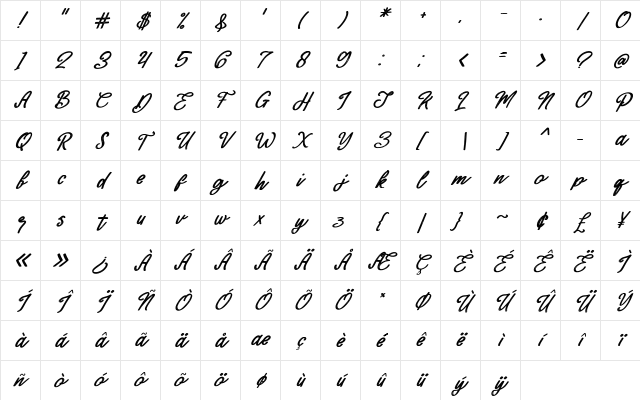
Mackline Italic Free Font
Mackline Italic
Foundry: Kong font
Designer: Kong font
Design Context for Mackline
Mackline is a composed and adaptable typeface that performs quietly and consistently across a wide range of design contexts. The slanted form adds forward momentum and visual energy.
Pro Tip: Use Mackline for emphasis, pull quotes, and subheadings where its slanted energy can add rhythm to the layout.